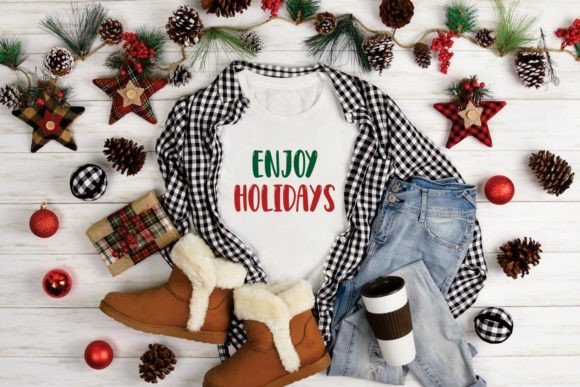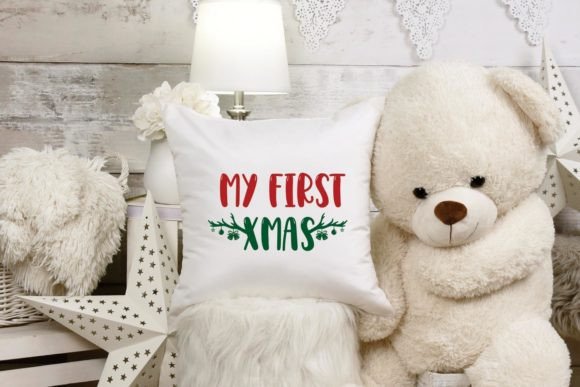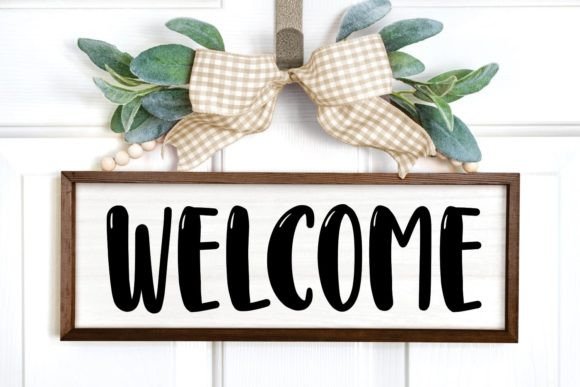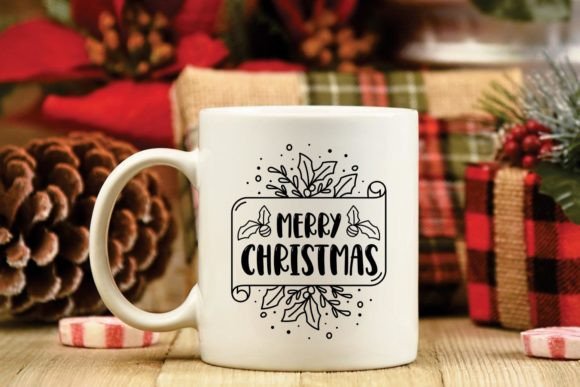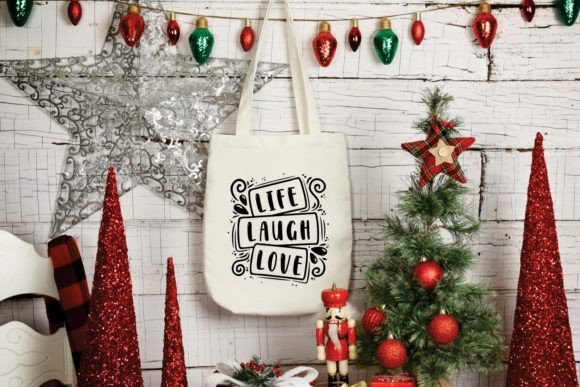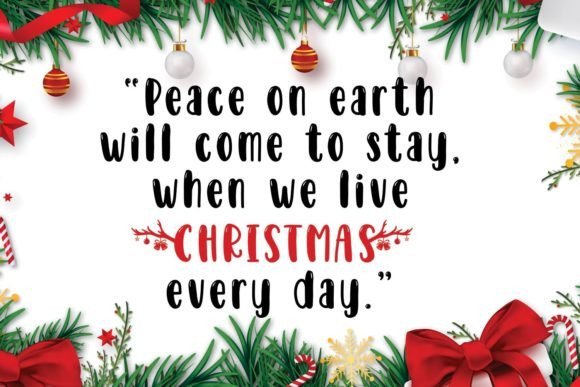
Introducing Dear Santa Font: The Ultimate Holiday Display Font
Are you looking for a font that can add a touch of whimsy and fun to your designs? Look no further than the Dear Santa font! This delightful display font is perfect for crafters, designers, and anyone looking to add a dash of holiday cheer to their projects. With its cute and jolly style, Dear Santa font is sure to elevate any creation and make it stand out.
The Perfect Font for Any Project
One of the best things about Dear Santa font is its versatility. Whether you’re working on a wedding invitation, blog post, or any other project, this font is sure to be an incredible asset to your font library. Its unique style is perfect for a wide range of topics and themes, from holiday-themed designs to more general crafting and branding projects. The only limit is your imagination!
Cute, Jolly, and Fun: The Characteristics of Dear Santa Font
So, what makes Dear Santa font so special? For starters, it’s incredibly cute and jolly, making it perfect for holiday-themed designs. But it’s not just limited to the holiday season – its fun and whimsical style makes it perfect for any project that needs a touch of personality. Whether you’re looking to add a dash of humor or simply want to create a design that’s a little bit different, Dear Santa font is the perfect choice.
Purpose-Built for Crafters and Designers
Dear Santa font is specifically designed with crafters and designers in mind. Its unique style and versatility make it perfect for a wide range of projects, from crafting and branding to decorating and more. Whether you’re a professional designer or simply a hobbyist, this font is sure to become a go-to in your font library.
Perfect for Wedding Invitations and Blogs
One of the most popular uses for Dear Santa font is in wedding invitations and blog posts. Its whimsical style and holiday cheer make it perfect for couples looking to add a touch of personality to their wedding stationery, while its versatility and ease of use make it perfect for bloggers looking to add a dash of fun to their content.
Tips for Using Dear Santa Font
So, how can you get the most out of Dear Santa font? Here are a few tips:
- Use it to add a touch of holiday cheer to your designs, even if you’re not working on a holiday-themed project.
- Experiment with different glyphs and swashes to create unique and personalized designs.
- Pair it with other fonts to create a truly unique and eye-catching design.
- Don’t be afraid to get creative and try new things – the versatility of Dear Santa font means that the possibilities are endless!
Key Features of Dear Santa Font
- Fun and whimsical display font
- Cute and jolly style
- Perfect for holiday-themed designs and more
- Perfect for wedding invitations, blogs, and more